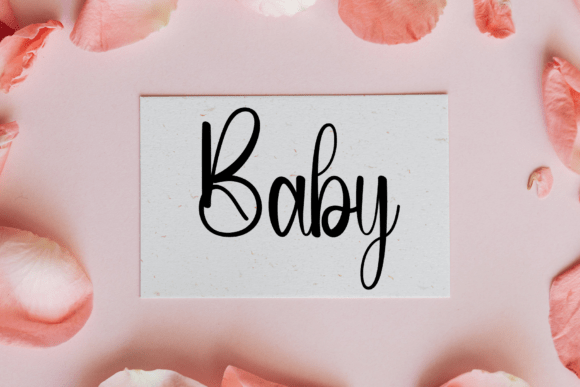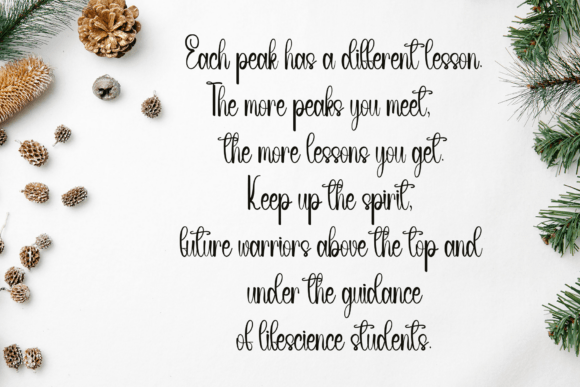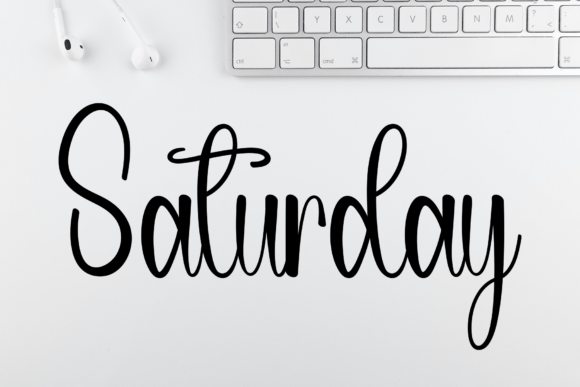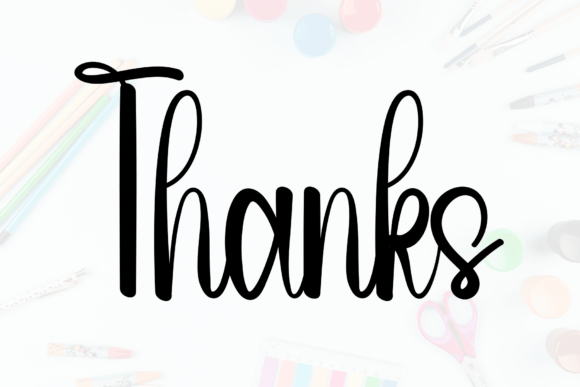
The Ambition Font: Elevate Your Design with a Relaxed yet Luxurious Touch
I still remember the design project that led me to discover the Ambition font. I was working on a branding project for a fashion startup, and I needed a font that would convey a sense of elegance and sophistication while still being casual and approachable. After hours of scouring font libraries and trying out different options, I stumbled upon Ambition – a handwritten font that looked like it was drawn with a marker. It was love at first sight! 💕
An Honest Review of Ambition Font
What I Love About Ambition Font
- ✨ The relaxed and sporty feel of Ambition font makes it perfect for designs that need to exude a sense of luxury and elegance without being too formal.
- ✅ The font’s marker-like quality gives it a unique and authentic look that’s hard to achieve with traditional fonts.
- 💯 The font is incredibly versatile and can be used for a wide range of design projects, from branding and logos to wedding supplies and greeting cards.
- 🎨 The font’s casual vibe makes it perfect for designs that need to feel approachable and friendly.
While Ambition font is an excellent choice for many design projects, there are a few quirks to be aware of: 🤔
- ⚠️ The font’s marker-like quality can make it a bit tricky to read at very small sizes, so it’s best to use it at larger sizes or for display purposes.
- ⚠️ Some of the font’s stylistic alternates and glyphs may not work well with certain software or platforms, so be sure to test them thoroughly before finalizing your design.
If you love the look and feel of Ambition font, here are a few similar fonts and alternatives you might want to consider:
- Kaffeesatz: This font has a similar relaxed and sporty feel to Ambition font, but with a more geometric and modern twist. Use it for designs that need to feel youthful and energetic.
- Great Vibes: This font has a similar handwritten quality to Ambition font, but with a more elegant and refined feel. Use it for designs that need to exude sophistication and luxury.
- Pacifico: This font has a similar casual and approachable vibe to Ambition font, but with a more script-like quality. Use it for designs that need to feel friendly and inviting.
- Alex Brush: This font has a similar marker-like quality to Ambition font, but with a more whimsical and playful feel. Use it for designs that need to feel creative and fun.
The Designer Inspiration Behind Ambition Font
The Ambition font was designed by a talented type designer who wanted to create a font that would capture the relaxed and sporty feel of modern fashion and lifestyle brands. The designer drew inspiration from the world of fashion and sports, combining the elegance and sophistication of high-end fashion with the casual and approachable vibe of athletic wear.
| Font Name | Ambition Font |
| Author | Berkah Shop |
Q: What is the best way to use Ambition font in my design?
A: The best way to use Ambition font is to pair it with a clean and simple sans-serif font, such as Open Sans or Lato. This will create a nice contrast between the font’s marker-like quality and the clean lines of the sans-serif font.
A: While Ambition font is beautiful and elegant, it’s not the best choice for body text. The font’s marker-like quality can make it a bit tricky to read at small sizes, so it’s best to use it for display purposes or headings.